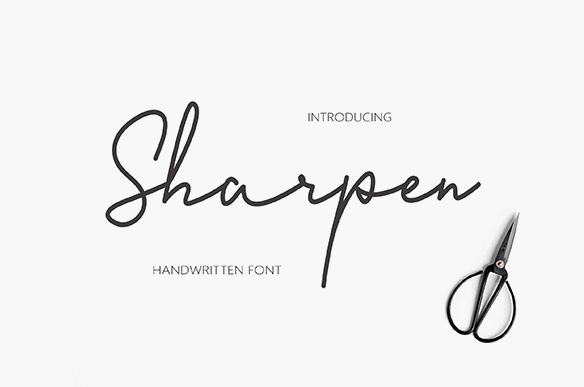
Sharpen Handwriting Font
Hi designer! If you are designing a logo or any other project, and if you want to use the best scripts, this is a good choice. Introducing Sharpen Font. A fashionable new handwriting font script with some sexy stylish extras:) Sharpen Script ! A clean & classy signature-style font set, perfect for creating authentic hand-lettered text quickly & easily. With exaggerated strokes and an extra bouncy baseline, Sharpen Script has an unmistakable charm; perfect for logos, headers, company or personal branding, product packaging, cards & handwritten quotes.